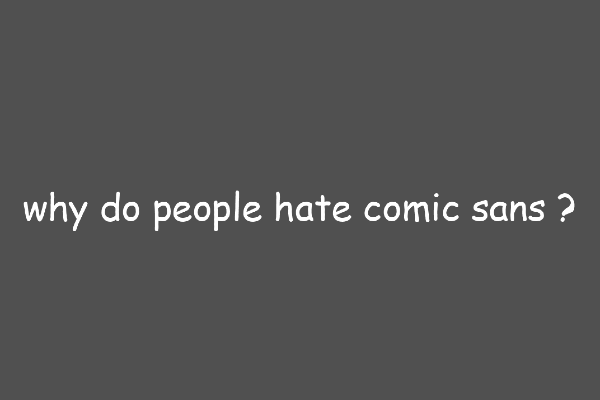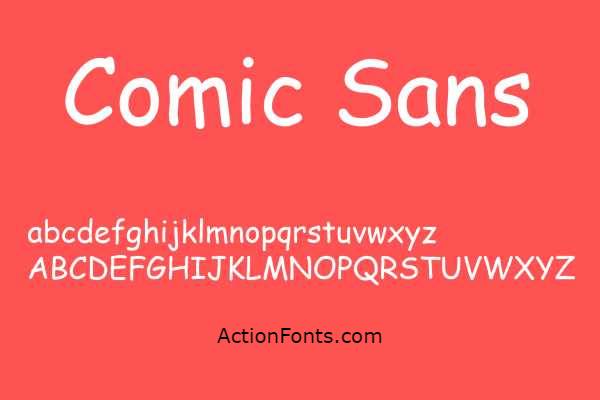
As it says in its name, the Comic Sans font is inspired by comic book lettering and designed by Vincent Connare for Microsoft Corporation. This sans-serif casual script typeface gives off a relaxed tone because of its simplicity and is extremely easy to read whether in small or large font sizes. Comic Sans is widely used in schools and, interestingly, is suitable for dyslexic students. Use this font now for your documents and projects using our Comic Sans Font Generator! Just choose which color you want your text to be, select a background color and font size, click generate, and enjoy your own Comic Sans font however you like!
For some strange reason, not everyone is a fan of this font. We've often wondered ourselves why do people hate comic sans so much? When used appropriately, this font can actually look good - I am not kidding LOL. If you are wondering why is comic sans hated, then perhaps you can take a look at these exceptional creations below - all designed and created using none other than Comic Sans MS. Feel free to download and use these images wherever you want. (all we ask in return is that you cite this page as the source of where you obtained it from). Enjoy!